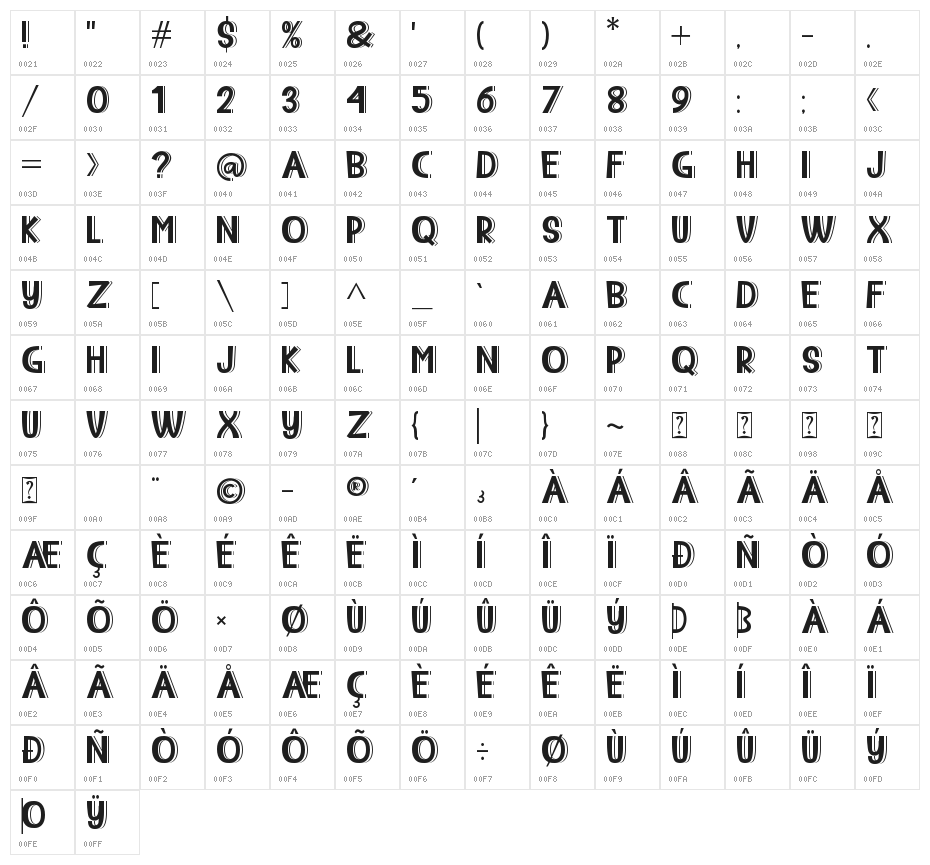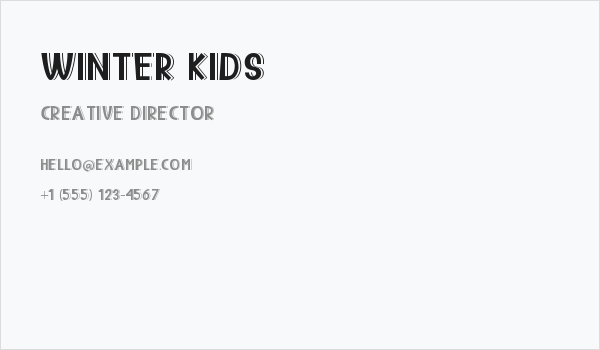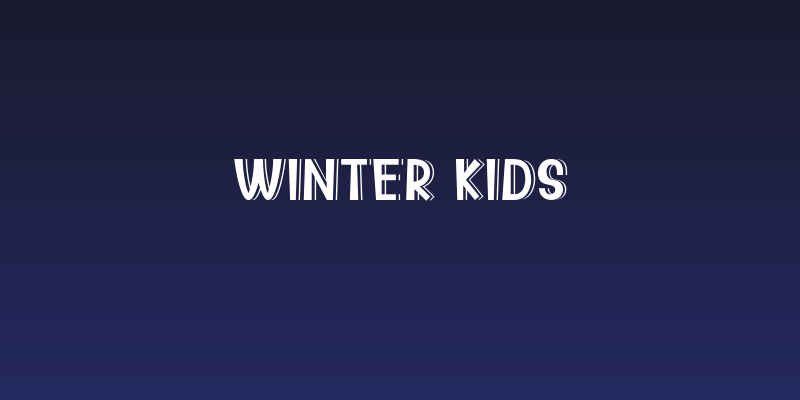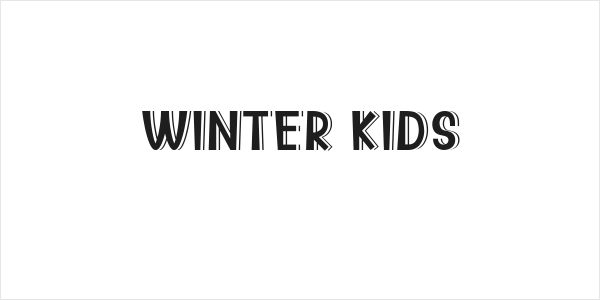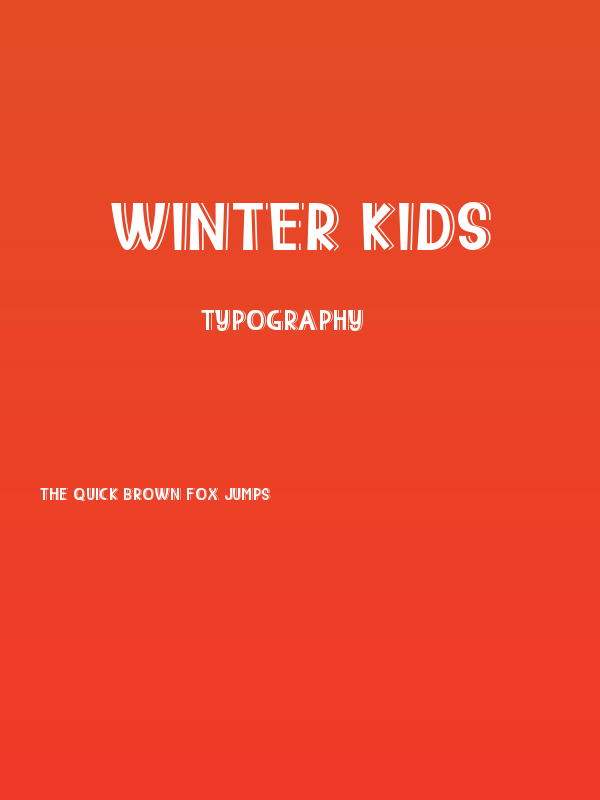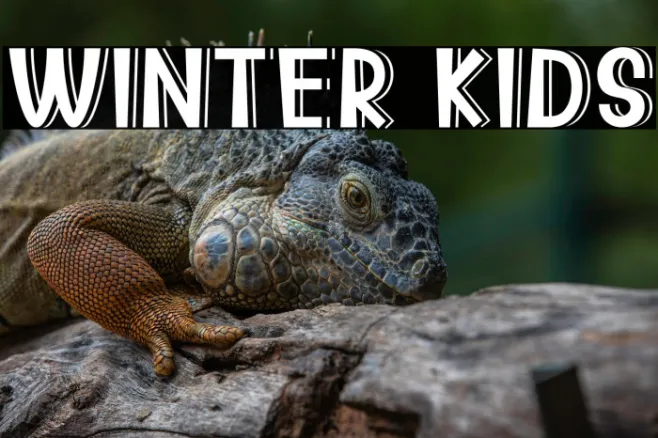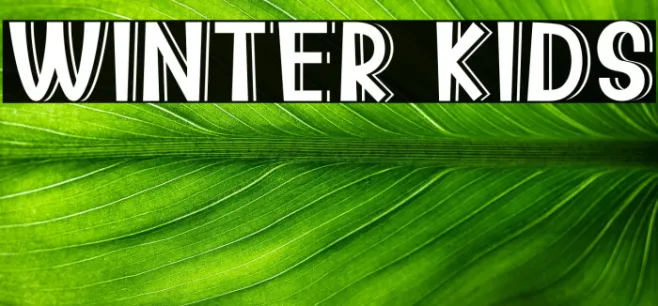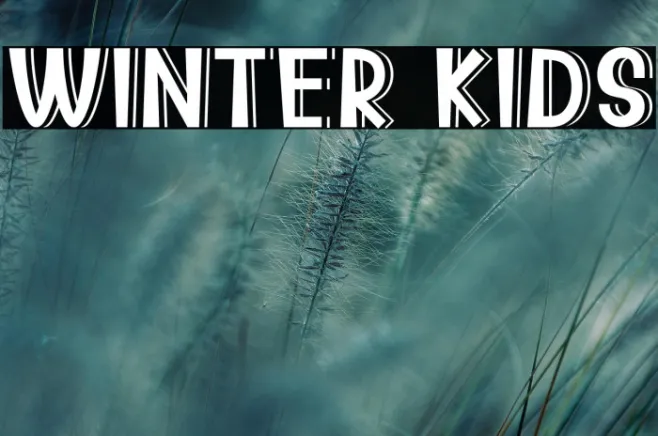
WINTER KIDS Font
WINTER KIDS Description
This font features a bold, playful style with a distinct shadow effect that gives each character a three-dimensional appearance. The uppercase letters are designed with a strong presence, making them ideal for attention-grabbing headlines. The lowercase letters maintain the same playful aesthetic, ensuring consistency across different text applications. Numbers and special characters are crafted with the same boldness and shadow effect, providing a cohesive look. The font's unique style makes it suitable for creative projects that require a fun and dynamic visual impact.
| Overall Style | Playful, Modern |
| Proposed Projects | Ideal for children's book covers, playful branding, event posters, and creative advertisements. |